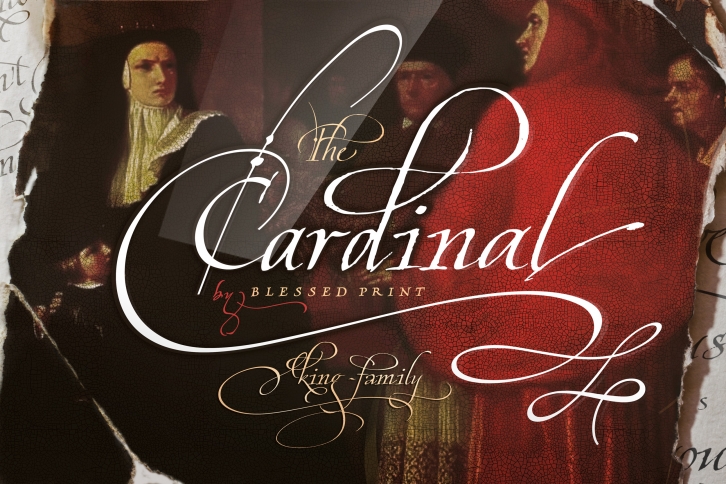
Cardinal is a great font that was designed by Blessed Print. Imagine the amount of combinations you can create using this font! The archive is 7.60 MB and it was released on October 21, 2018. Cardinal looks beautiful on wedding invitations, greeting cards, logos, posters, labels, t-shirt designs, logos, business cards and is perfect for use in ink or watercolor works, fashion, magazines, packaging and food menus, children's books and more!